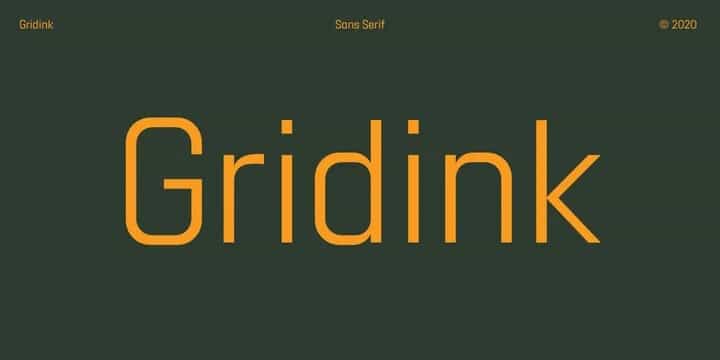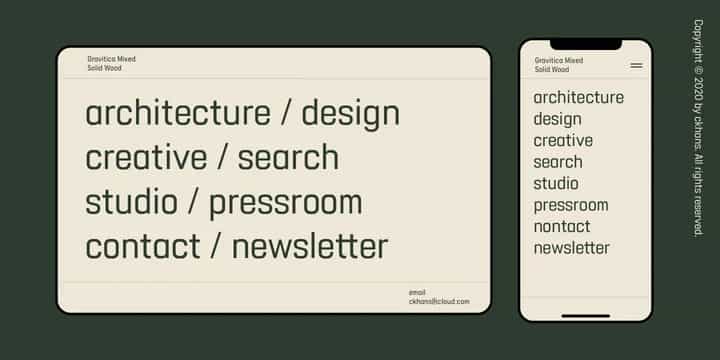
Gridink Basic Sans typeface will give your text a professional look while using it is a pleasure. This font has been designed by Ckhans Fonts and is accompanied by 9 weights, 18 uprights, matching italic and patterns so you can use them in your design to your liking. Characteristics that are most prominent and include open type features with strong emphasis on open type features.